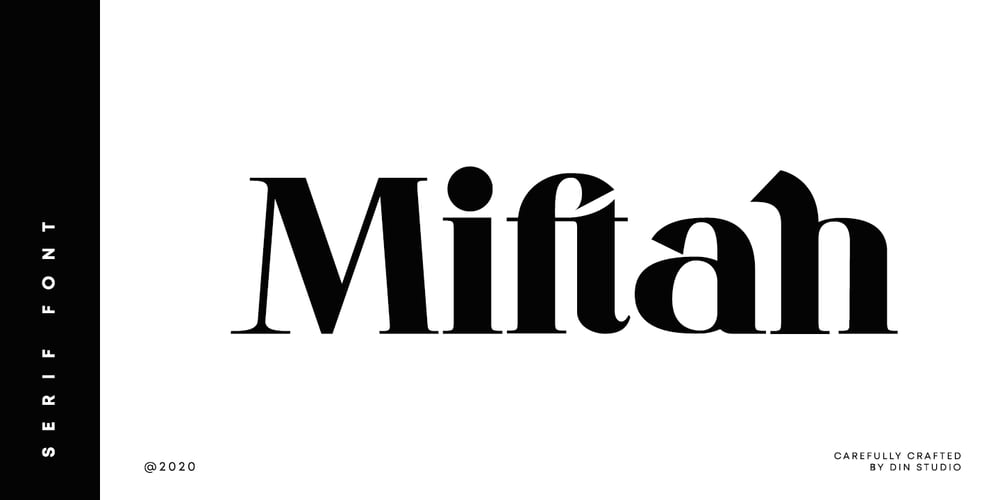
Miftah Font Family was designed by Donis Miftahudin and published by Din Studio. Miftah contains 1 styles and family package options. Miftah is a modern serif font. Made for any professional project branding. It is the best for logos, branding and quotes. Every letter has a unique and beautiful touch.Features: Beautiful Ligatures Stylistic Set Swashes PUA Encoded Multilingual Support Numerals and Punctuation Thank you for downloading premium fonts from Din Studio